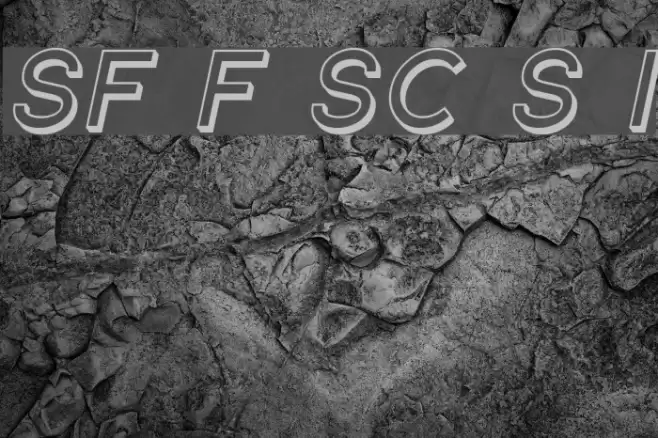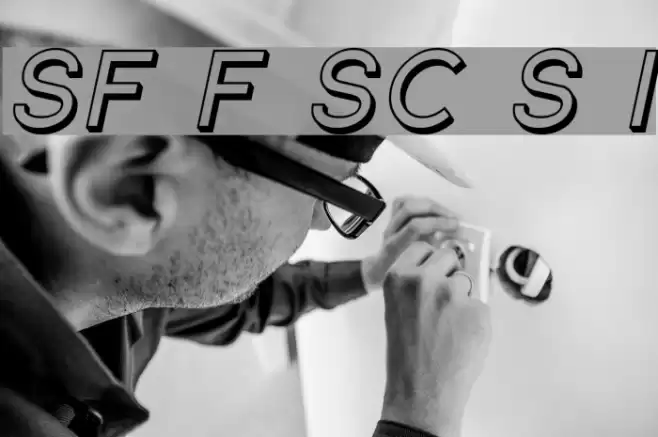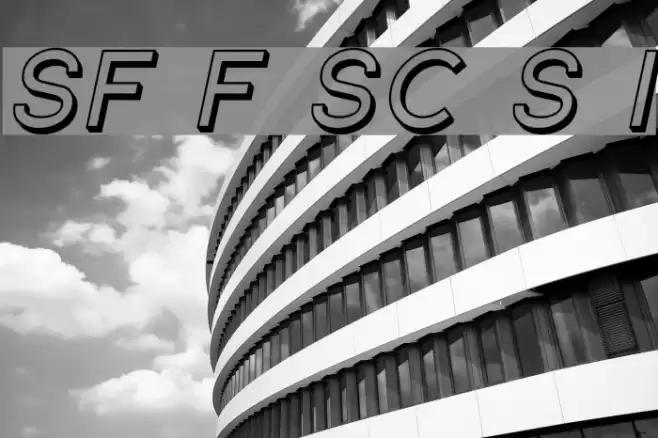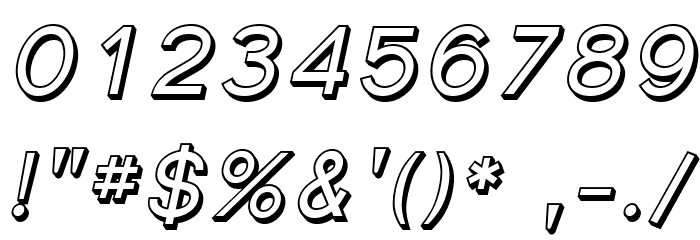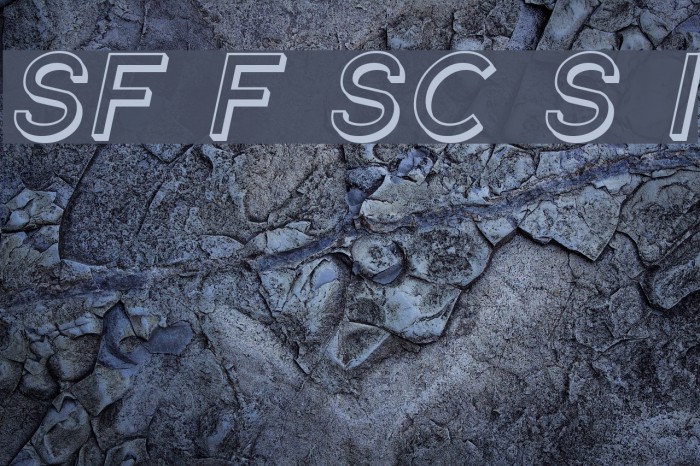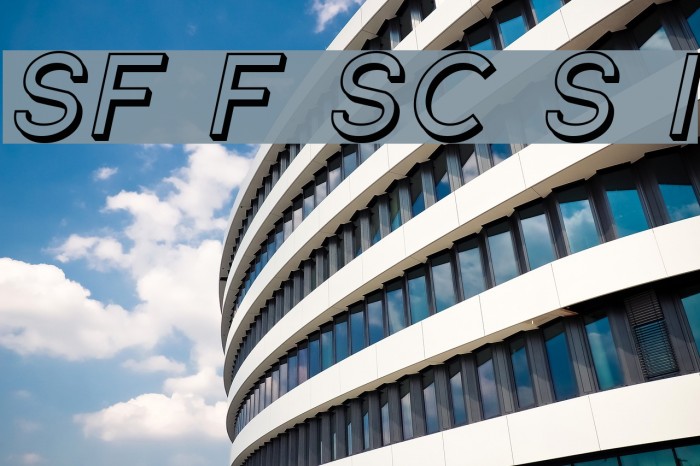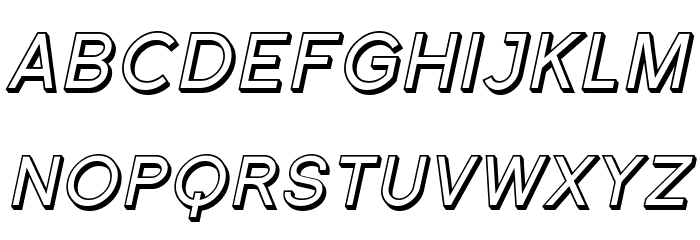
SF Florencesans SC Shaded Italic Font
SF Florencesans SC Shaded Italic Description
This font features a bold, italicized style with a unique shaded effect that gives it a three-dimensional appearance. The characters are sans-serif, providing a clean and modern look. The shading adds depth and visual interest, making it stand out in any design. The uppercase and lowercase letters are consistent in style, with a slight slant that enhances the italic effect. Numbers and special characters are also included, maintaining the same bold and shaded characteristics. The overall design is both eye-catching and sophisticated, suitable for various creative applications.
A bold, italicized sans-serif font with a unique shaded effect from Uncategorized fonts.
- Proposed Projects: Ideal for headlines, posters, logos, and branding materials where a modern and striking appearance is desired.